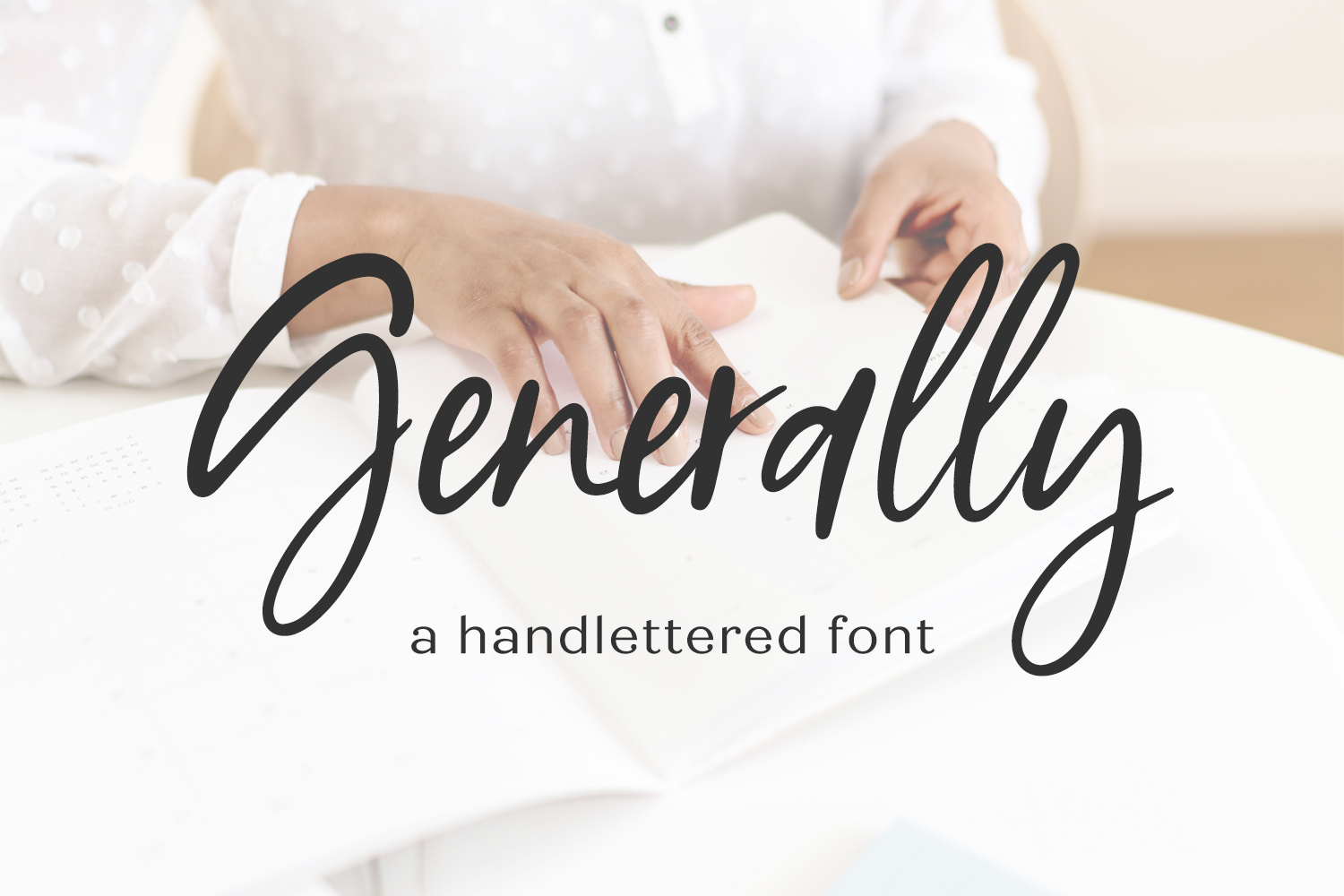
Introducing Generally Script, a handwritten signature style font. This chic, stylish font features a messy, casual look like handwriting, making it perfect for a signature style logo!
Generally Script is best for:
- logos + branding, like beauty, cosmetics, and health brands
- website design + website accents - think design blogs, travel blogs, fashion blogs, & more
Generally includes:
- 26 lowercase alternates